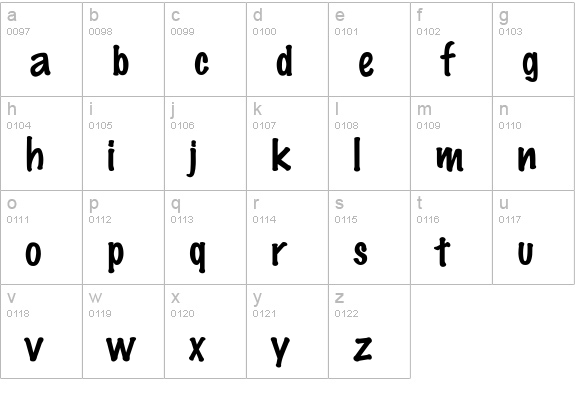
FeltTip Font Details
FeltTip font is a charming and versatile typeface that exudes a sense of warmth and creativity. With its soft curves and smooth lines, FeltTip is perfect for adding a touch of whimsy to any design project. Whether you're creating invitations, posters, or branding materials, this font will bring a playful and inviting feel to your work. Best of all, FeltTip is available for free download at FontsMarket.com. This means you can easily access this delightful font and incorporate it into your projects without any cost. Don't miss out on the opportunity to enhance your designs with the unique character of FeltTip font - download it today and let your creativity soar!